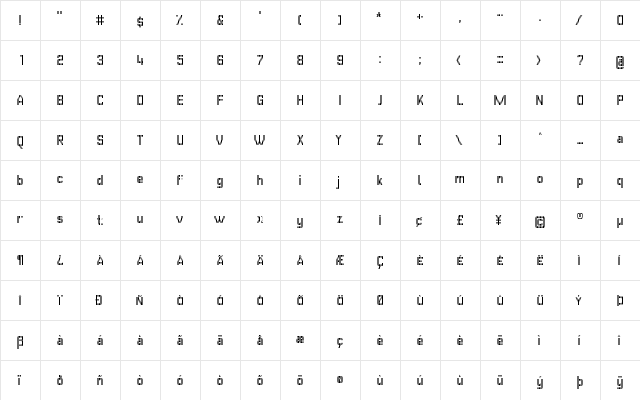
GVB Bus PID 13x8 Regular
| Designer | Jeffrey Visser |
Design Context for GVB Bus PID 13x8 Typeface
GVB Bus PID 13x8 offers clean, dependable letterforms without strong stylistic allegiance, making it a practical choice for designers who need flexibility.